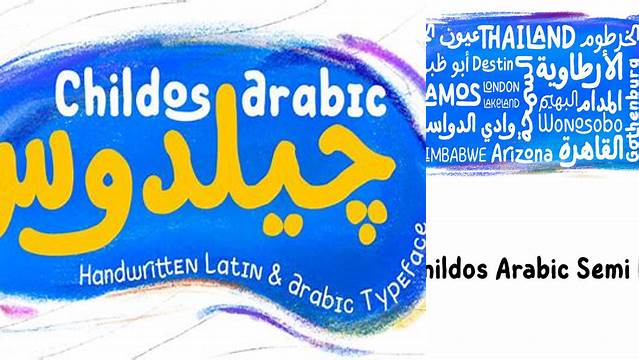
Are you looking for a unique and elegant Arabic font to enhance your design projects? Look no further! The Childos Arabic font family offers a beautiful and versatile solution for a wide range of applications. In this comprehensive guide, we'll explore everything you need to know about this font family, including its characteristics, where to download it for free, and how to use it effectively in your designs.
What Makes Childos Arabic Font Family Special?
The Childos Arabic font family stands out due to its distinctive and modern design. Unlike traditional Arabic fonts that can sometimes appear rigid or formal, Childos offers a more playful and approachable aesthetic. This makes it particularly well-suited for projects targeting younger audiences or those aiming for a contemporary feel. Its clean lines and balanced letterforms ensure excellent readability, making it suitable for both display and body text. The Childos Arabic font family is characterized by its rounded terminals and soft curves, giving it a friendly and inviting appearance. This makes it an excellent choice for projects that need to convey warmth, approachability, and a sense of fun. Furthermore, the font's consistent stroke weight and carefully crafted letterforms ensure a harmonious and balanced visual experience. Whether you're designing a children's book, a website for a creative agency, or marketing materials for a playful brand, Childos can help you achieve the desired aesthetic.
Another key aspect of the Childos font family is its versatility. It is designed to work well in a variety of contexts, from print to digital media. Its clean lines and clear letterforms ensure that it remains legible even at small sizes, making it suitable for body text in books, articles, and websites. At the same time, its unique and eye-catching design makes it an excellent choice for headlines, logos, and other display elements. The Childos Arabic font family includes multiple weights and styles, allowing you to fine-tune the appearance of your text to match the specific requirements of your project. Whether you need a bold and impactful headline or a light and elegant body text, Childos has you covered. This versatility makes it a valuable asset for designers working on a wide range of projects. Its adaptability ensures that it can be seamlessly integrated into different design styles and contexts, making it a reliable choice for both experienced and novice designers. Furthermore, the font's comprehensive character set supports a wide range of Arabic characters and diacritics, ensuring that you can accurately and effectively communicate your message in Arabic.
Moreover, the Childos Arabic font family supports a wide range of applications, from branding and advertising to web design and print media. Its versatility makes it a valuable asset for designers working on diverse projects. The font's clean and modern design ensures that it remains legible and visually appealing across different platforms and media. Whether you're creating a logo for a new business, designing a website for a creative agency, or producing marketing materials for a product launch, Childos can help you achieve the desired impact. The font's unique personality and distinctive character make it stand out from other Arabic fonts, helping you to create designs that are both visually appealing and memorable. In addition to its aesthetic qualities, the Childos Arabic font family is also designed to be user-friendly and easy to work with. Its clear and consistent design ensures that it can be seamlessly integrated into your design workflow, saving you time and effort. Whether you're a seasoned professional or a novice designer, you'll find Childos to be a valuable and versatile tool for your creative projects. Its adaptability and ease of use make it a reliable choice for a wide range of design applications.
How to Use Childos Arabic Font Family Effectively
- Pair it with complementary fonts: Experiment with different font pairings to create visually appealing designs. Consider pairing Childos with a clean sans-serif font for body text or a classic serif font for headings. The key is to choose fonts that complement each other in terms of style, weight, and overall aesthetic.
- Use it for branding: The Childos Arabic font family can be a great choice for branding projects, especially for businesses targeting younger audiences or those seeking a modern and playful image. Use it in your logo, website, and marketing materials to create a consistent brand identity.
- Incorporate it into web design: Childos can add a unique touch to your web designs. Use it for headings, subheadings, and body text to create a visually engaging and readable website. Make sure to optimize the font for web use to ensure fast loading times.